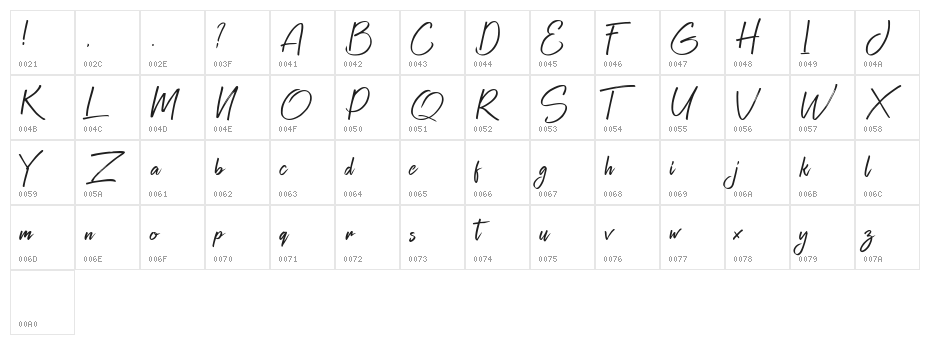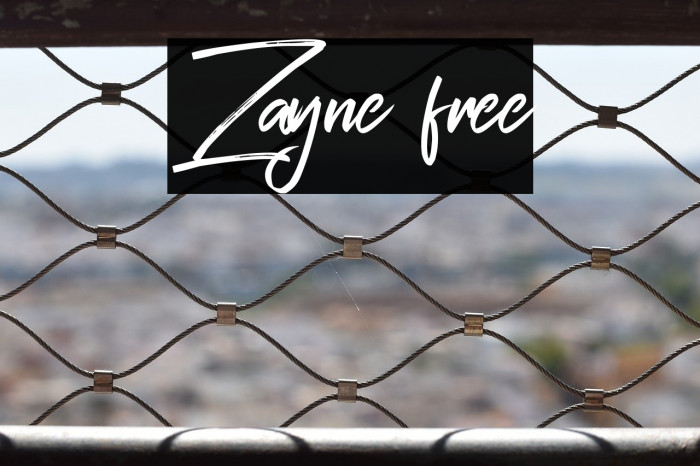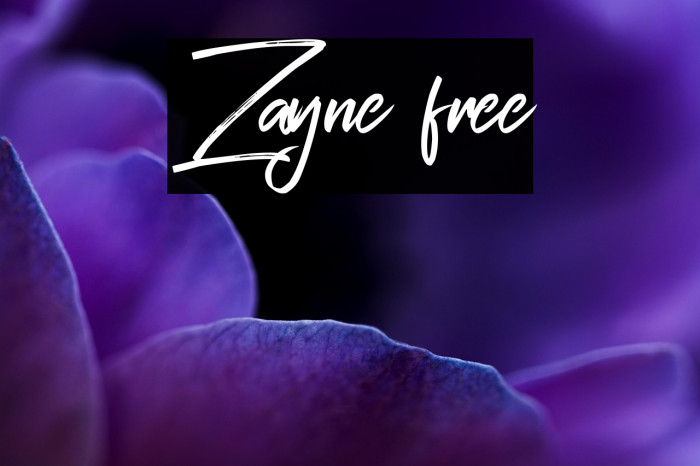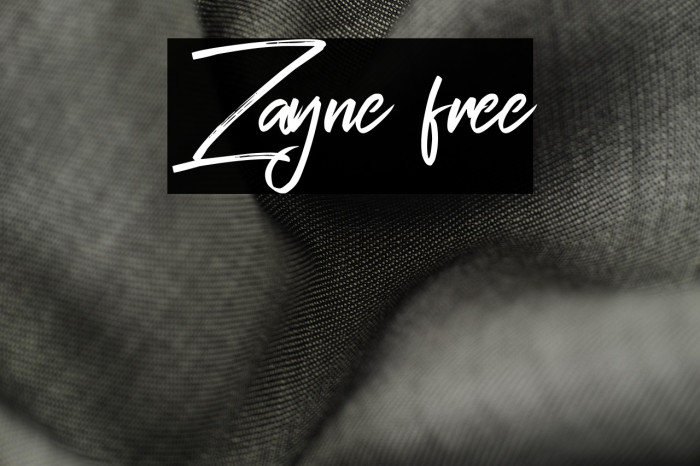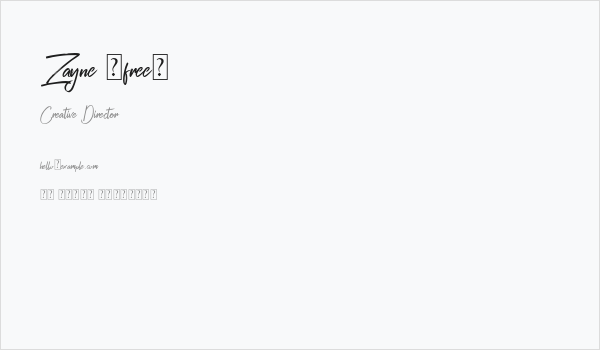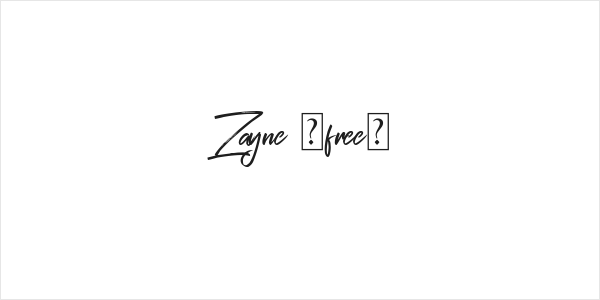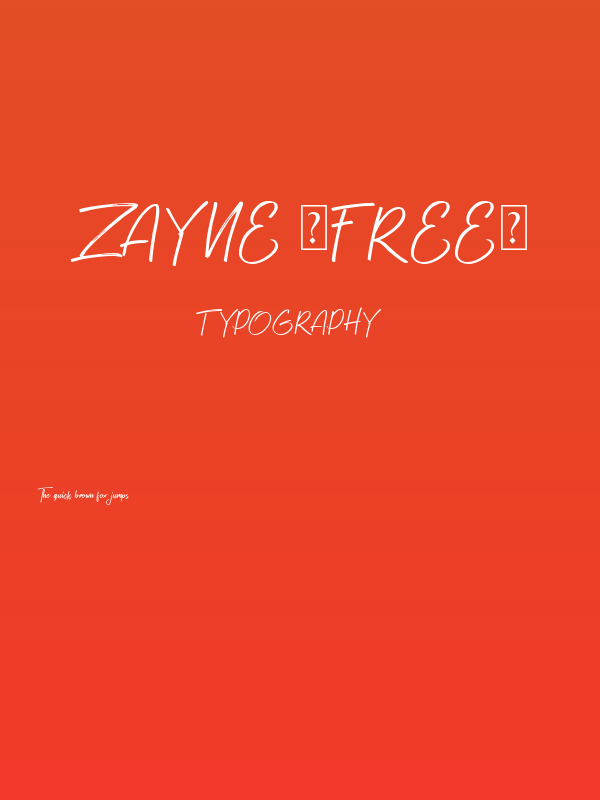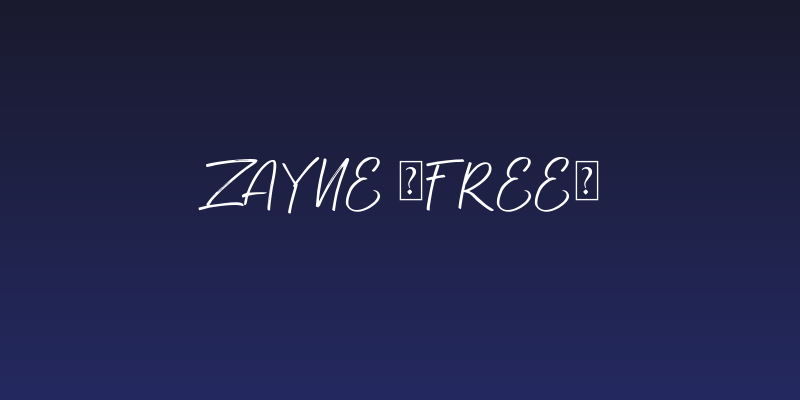
Zayne [free] Font
Zayne [free] Description
This font features a dynamic and expressive handwritten style, characterized by its fluid and slightly slanted letterforms. The uppercase letters are tall and elegant, with a consistent stroke width that gives them a refined appearance. The lowercase letters are more playful and varied, with some characters featuring loops and flourishes that add a touch of whimsy. The overall design is modern and stylish, making it suitable for creative projects that require a personal touch. The spacing between characters is relatively tight, enhancing the cohesive look of the text. This font is versatile and can be used in various design contexts, from invitations and greeting cards to branding and social media graphics.
| Proposed Projects | Ideal for invitations, greeting cards, branding, and social media graphics. |